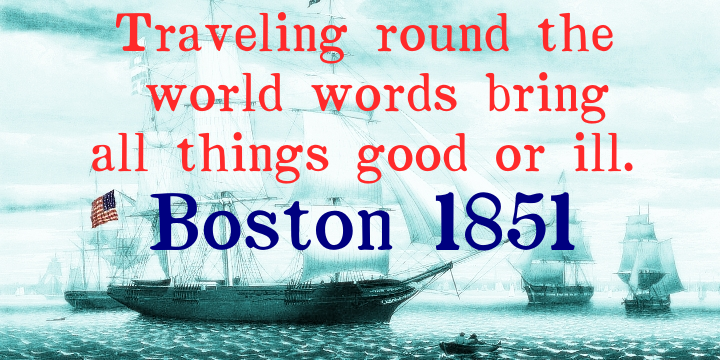
Boston 1851 Font is perfect for American historical materials, colonial heritage projects, traditional New England branding, vintage American publications, patriotic event designs, historical society communications, authentic period reproductions, antique American signage, heritage tourism promotions, and classic American storytelling applications. This distinguished typeface creates authentic 19th-century atmosphere in both traditional print and digital heritage platforms.
What makes Boston 1851 Font exciting is its faithful reproduction of mid-19th century American typography with authentic period character and historical sophistication. The font features traditional letterforms with colonial-era proportions and authentic American typographic details that evoke cobblestone streets, gas lamps, and the golden age of American craftsmanship. Its historical design establishes an atmosphere of American heritage and cultural authenticity that resonates with audiences appreciating authentic American history and traditional values.
Boston 1851 Font family includes heritage variations: Regular, Bold, Italic, and Colonial versions, each with period-authentic alternates and American historical character sets. Each variant maintains the font's historical integrity while providing designers with authentic options for creating traditional typography systems and heritage communication materials.
This exceptional historical typeface brings authentic American credibility to projects requiring period presentation. Whether you're designing historical documentation, heritage branding, or patriotic marketing materials, Boston 1851 Font Free Download delivers outstanding authenticity and American sophistication. The font's period-accurate proportions and historical details ensure memorable heritage connection across various American applications.
Historical societies and heritage organizations recognize how Boston 1851 Font perfectly captures the essence of 19th-century American typography and cultural heritage. Its authentic foundation combined with historical accuracy makes it essential for heritage and historical design projects. Download today and historically American your designs with this exceptionally authentic period typography.